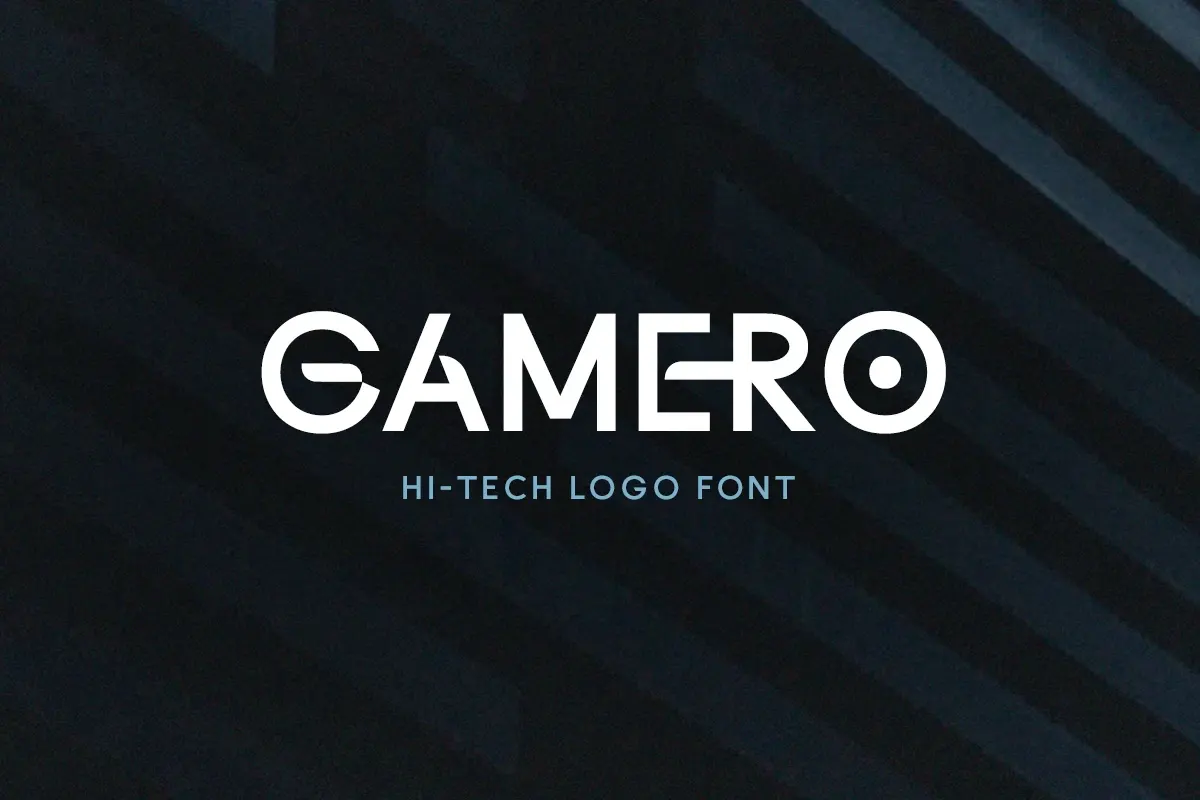
Gamero – Hi-Tech Logo Font Free Download is a sleek, futuristic typeface designed for high-tech branding and cutting-edge digital designs. With its clean lines, sharp angles, and modern aesthetic, Gamero is perfect for tech startups, gaming logos, eSports team branding, app interfaces, and anything that requires a futuristic, digital feel.
Gamero – Hi-Tech Logo Font Free Download captures the essence of innovation and technology with a modern, minimalistic design that shines in both print and digital formats. Whether you're designing a tech brand, a gaming platform, or futuristic graphics, this font adds a sophisticated, digital vibe that sets your project apart.